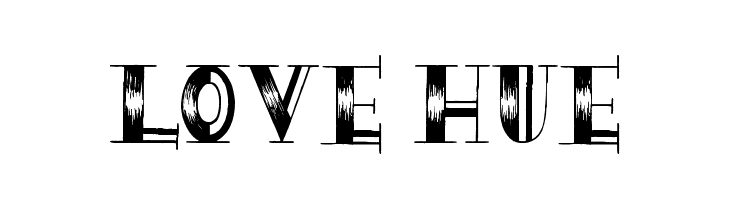
( Maulana Creative - Gilang Maulana - maulanacreative.net/ )
An elegant script font with graceful, flowing lines and high contrast.
( Font by Jonathan Harris - www.tattoowoo.com )
A decorative font with a distressed, brush-stroke effect for dynamic designs.
A playful and whimsical font with rounded letterforms and romantic symbols.
( Woodcutter - woodcutter Manero - www.woodcutter.es )
A playful, heart-themed font with bold, stylized characters.
A playful, rounded handwritten font with smooth curves and a friendly appearance.
A bold, geometric font with a modern and attention-grabbing style.